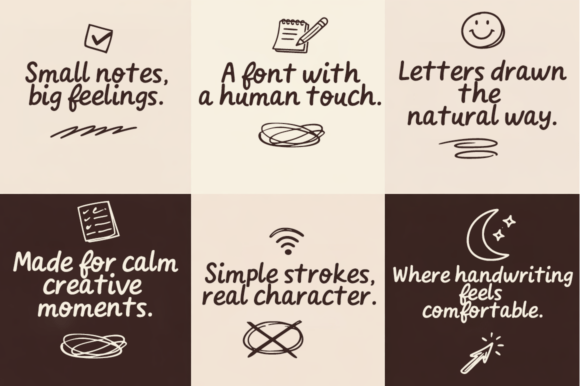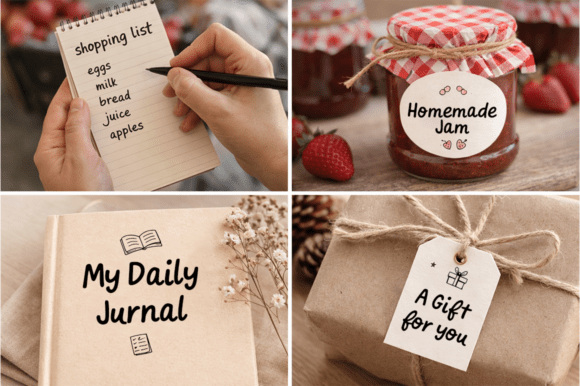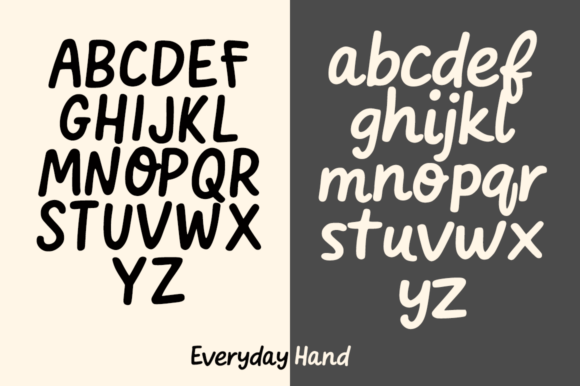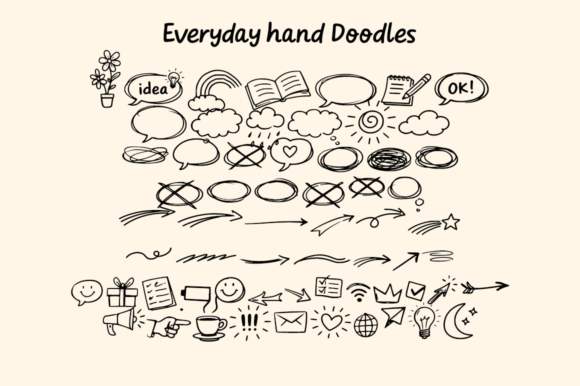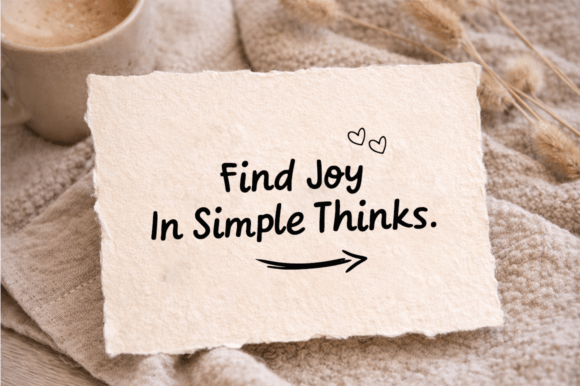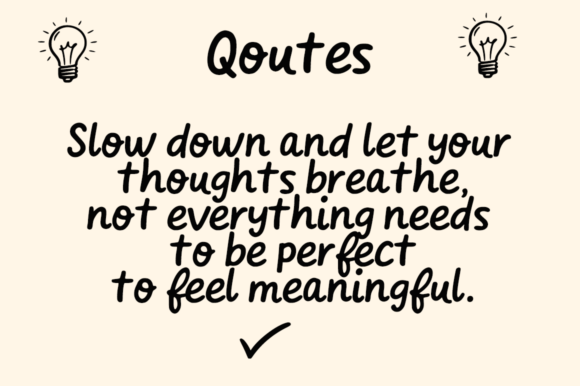
Introducing Everyday Hand: The Perfect Font for a Personal Touch
Are you tired of using the same old fonts for your designs? Do you want to add a personal touch to your projects? Look no further than Everyday Hand, a natural hand-drawn font that’s perfect for creating a warm and approachable look. In this article, we’ll take a closer look at the features of Everyday Hand and explore how it can be used to elevate your designs.
The Inspiration Behind Everyday Hand
Everyday Hand is a font that’s inspired by relaxed, everyday handwriting. The letterforms feature soft strokes and an organic flow, creating a look that feels natural and effortless. The font is designed to mimic the imperfections of handwriting, giving it a unique and personal touch. Whether you’re designing a quote, a journal, or a social media graphic, Everyday Hand is the perfect choice for adding a friendly and human feel to your project.
Key Features of Everyday Hand
So, what sets Everyday Hand apart from other fonts? Here are some of its key features:
- Natural Hand-Drawn Look: Everyday Hand is a hand-drawn font that’s designed to look like relaxed, everyday handwriting. The letterforms feature soft strokes and an organic flow, creating a warm and approachable look.
- Subtle Imperfections: The font is designed with subtle imperfections, giving it a unique and personal touch. These imperfections add character to the font and make it feel more human.
- Hand-Drawn Doodle Elements: Everyday Hand includes hand-drawn doodle elements that can be used to add playful accents to your designs. These elements include things like lines, shapes, and icons that can be used to add visual interest to your project.
- Clear and Readable: Despite its hand-drawn look, Everyday Hand is clear and readable, making it perfect for use in a wide range of projects, from quotes and journals to branding and packaging.
Uses for Everyday Hand
Everyday Hand is a versatile font that can be used in a wide range of projects. Here are some ideas for how you can use it:
- Quotes and Inspirational Graphics: Everyday Hand is perfect for creating inspirational graphics and quotes. The font’s natural, hand-drawn look adds a personal touch to your message, making it more relatable and engaging.
- Journals and Planners: Add a personal touch to your journals and planners with Everyday Hand. The font’s friendly and approachable look makes it perfect for use in projects that require a human feel.
- Branding and Packaging: Everyday Hand can be used to create unique and eye-catching branding and packaging. The font’s natural look and feel make it perfect for use in projects that require a friendly and approachable vibe.
- Social Media Graphics: Use Everyday Hand to create social media graphics that stand out from the crowd. The font’s hand-drawn look and feel make it perfect for use in projects that require a personal touch.
- Lifestyle-Themed Designs: Everyday Hand is perfect for use in lifestyle-themed designs, such as posters, flyers, and brochures. The font’s natural look and feel make it perfect for use in projects that require a friendly and human vibe.
Tips for Using Everyday Hand
Here are some tips for getting the most out of Everyday Hand:
- Experiment with Different Sizes: Everyday Hand looks great in a variety of sizes, from small to large. Experiment with different sizes to find the one that works best for your project.
- Use the Font’s Built-In Doodle Elements: The font’s built-in doodle elements are a great way to add visual interest to your project. Use them to add playful accents and create a more dynamic design.
- Pair it with Other Fonts: Everyday Hand can be paired with other fonts to create a unique and eye-catching look. Try pairing it with a bold font for a striking contrast.
| Font Name | Everyday Hand Font |
Everyday Hand is a natural hand-drawn font that’s perfect for adding a personal touch to your designs. With its soft strokes, organic flow, and subtle imperfections, it’s the perfect choice for creating a warm and approachable look. Whether you’re designing a quote, a journal, or a social media graphic, Everyday Hand is the perfect font for adding a friendly and human feel to your project. So why not give it a try and see how it can elevate your designs?